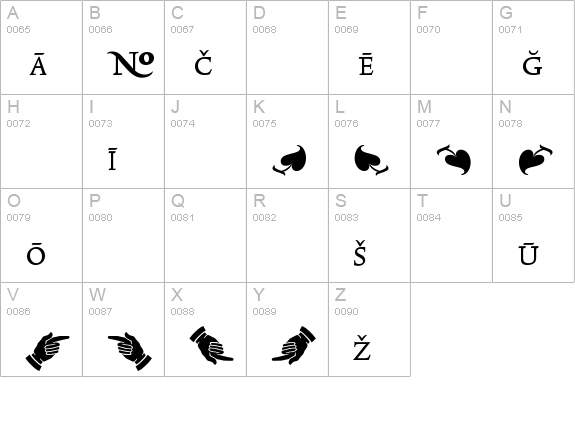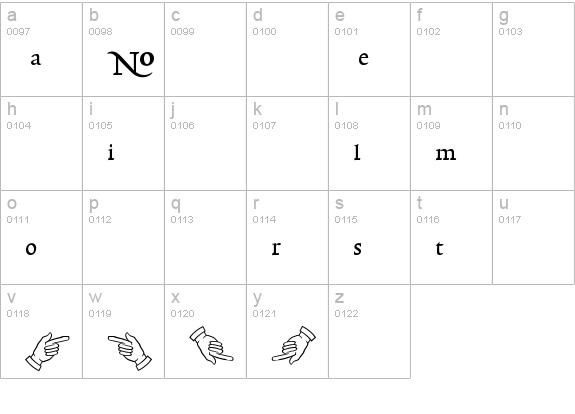
Introducing TriniteNo1-RomanCondensedPi, a captivating font that exudes elegance and sophistication. This font is perfect for those seeking a touch of timeless beauty in their designs. With its sleek and slender letterforms, TriniteNo1-RomanCondensedPi adds a touch of refinement to any project. This font boasts a unique combination of classic Roman lettering with a condensed style, resulting in a harmonious balance between tradition and modernity. Its clean lines and perfectly proportioned characters make it a versatile choice for a wide range of applications, from branding and logo design to editorial layouts and signage. TriniteNo1-RomanCondensedPi stands out with its meticulous attention to detail and impeccable craftsmanship. Each letter has been carefully crafted to ensure legibility, even at smaller sizes. The subtle curves and graceful serifs give this font a distinct personality, making it an excellent choice for those looking to make a bold statement with their typography. One of the best aspects of TriniteNo1-RomanCondensedPi is that it is freely available to download at FontsMarket.com. This means that designers and creatives can easily access this exquisite font without any hassle or cost. Whether you're a professional designer or just starting out, TriniteNo1-RomanCondensedPi offers a world of possibilities at your fingertips. So why wait? Elevate your designs with the timeless beauty of TriniteNo1-RomanCondensedPi. Download it for free at FontsMarket.com and unlock a world of typography possibilities.